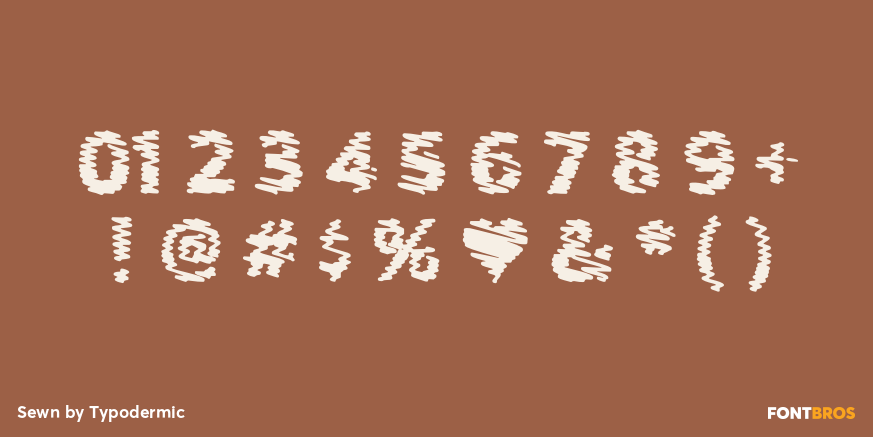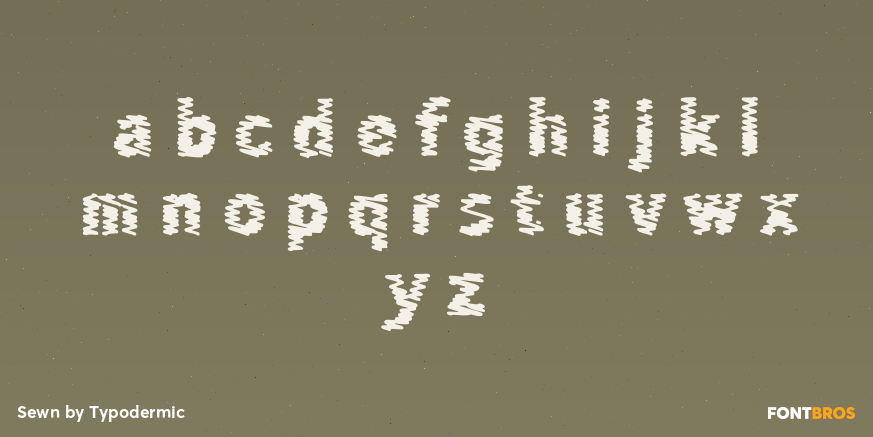
Sewn
Font Family by Typodermic
Sewn carries the look of stitching into editable display typography. Its letters are constructed from repeated thread-like marks, with S, M, L, and XL versions providing different apparent stitch scales for different display sizes. A small product graphic and an oversized campaign headline can share the same embroidered flavor without simply enlarging one fixed texture until the “thread” becomes implausibly heavy. Sewn looks stitched; it is not intended to generate embroidery-machine artwork.
Apparel launch campaigns are an especially strong setting. Sportswear, outerwear, denim, streetwear, and uniform collections may contain actual embroidered garments, but the surrounding campaign has to work across ecommerce, video, window graphics, lookbooks, social media, and retail displays. Sewn can handle collection names, campaign headlines, product-series titles, garment-detail callouts, launch-film typography, and store graphics that visually belong beside embroidered logos, chest marks, patches, and labels.
Sports merchandise and fanwear provide another natural fit. Baseball caps, varsity jackets, team hoodies, golf apparel, motorsport paddock wear, pickleball club merchandise, tournament jackets, and commemorative collections often rely on stitching as part of the product itself. Sewn can extend that association into team-store banners, merchandise-drop graphics, championship slogans, ecommerce tiles, clubhouse displays, and promotional campaigns.
Workwear and outdoor gear use the same visual vocabulary in a more technical setting. Utility jackets, packs, field apparel, climbing gear, technical outerwear, and rugged accessories frequently combine embroidered chest marks, patches, woven labels, and visibly constructed details. Sewn can carry seasonal collection names, catalog covers, product-launch graphics, field-testing campaigns, ecommerce headers, and retail installations.
Repair, resale, and garment-life programs provide another reason to borrow the stitched look. Repair counters, take-back programs, refurbished collections, visible-mending events, and garment-care campaigns can use Sewn for service identities, event graphics, collection titles, campaign headlines, and workshop signage without pretending to reproduce the stitch used in the actual repair.
Fashion collaborations, sports crossovers, character partnerships, and limited merchandise drops can extend the same treatment into pop-up graphics, packaging sleeves, ecommerce launches, promotional video, retail walls, and collection titles.
Sewn is most useful when embroidery is part of the visual language but not the production method. It brings stitched texture into screens, print, motion, packaging, and environmental graphics while giving designers several apparent stitch scales to suit the final display.